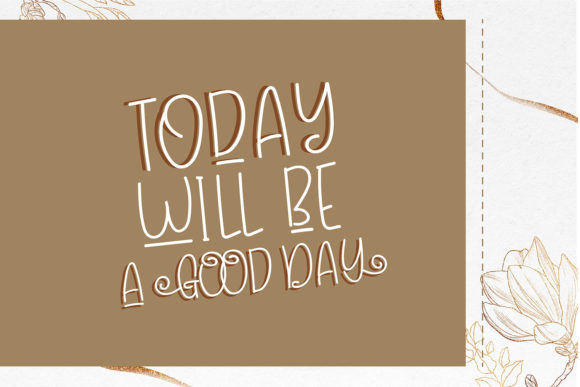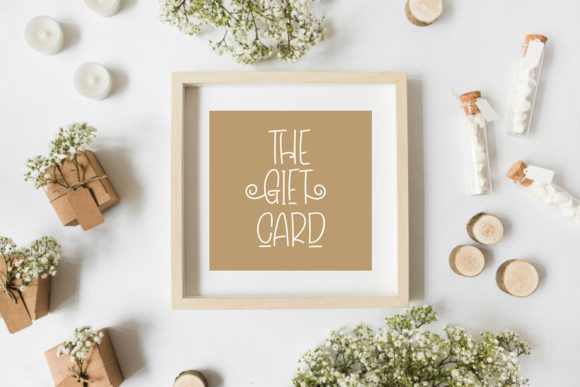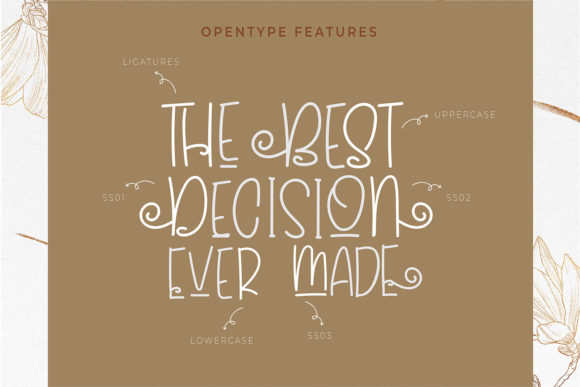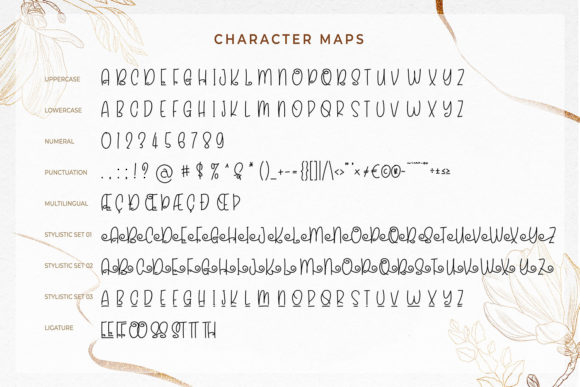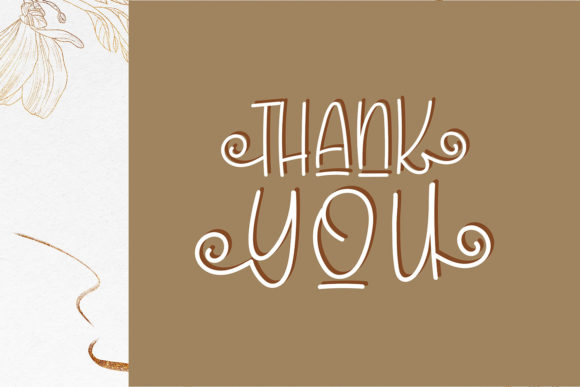
Aleecia Font: Elevate Your Designs with a Simple yet Trendy Display Font
In the world of typography, fonts play a crucial role in conveying messages, expressing emotions, and creating visual identities. For designers, crafters, and creatives, finding the right font can be a daunting task. However, if you’re looking for a versatile and stylish display font, look no further than Aleecia Font. In this article, we’ll explore the features, benefits, and uses of Aleecia Font, and why it’s an incredibly valuable asset to your font library.
What is Aleecia Font?
Aleecia Font is a simple and trendy display font designed to elevate your creations. Its clean and minimalist aesthetic makes it perfect for a wide range of applications, from branding and advertising to packaging and digital media. Whether you’re working on a logo, headline, or social media post, Aleecia Font is an excellent choice.
Key Features of Aleecia Font
- Simple and Trendy Design: Aleecia Font boasts a modern and sleek design that’s perfect for contemporary brands and designs.
- Versatility: This font is incredibly versatile and can be used for various applications, including headings, titles, and short texts.
- Easy to Read: Aleecia Font is designed to be highly legible, making it perfect for digital media and print materials.
- High-Quality: This font is crafted with precision and attention to detail, ensuring a high-quality appearance in any design.
Benefits of Using Aleecia Font
So, why should you choose Aleecia Font for your designs? Here are some benefits of using this amazing display font:
- Enhance Your Brand’s Visual Identity: Aleecia Font can help you create a cohesive and professional visual identity for your brand.
- Stand Out from the Crowd: With its unique and trendy design, Aleecia Font can help your designs stand out in a crowded market.
- Save Time and Effort: This font is easy to use and doesn’t require extensive design expertise, saving you time and effort.
Who Can Benefit from Aleecia Font?
Aleecia Font is an excellent addition to any designer’s or crafter’s font library. Here are some professionals who can benefit from this amazing display font:
- Graphic Designers: Aleecia Font is perfect for graphic designers working on branding, advertising, and marketing materials.
- Digital Artists: This font is great for digital artists creating social media graphics, blog posts, and other digital content.
- Crafters and Makers: Aleecia Font is ideal for crafters and makers creating handmade products, such as jewelry, crafts, or artwork.
- Web Designers: This font can be used in web design to create visually appealing headings, titles, and short texts.
Tips and Tricks for Using Aleecia Font
To get the most out of Aleecia Font, here are some tips and tricks to keep in mind:
- Use it as a Display Font: Aleecia Font is designed to be used as a display font, so use it to create headings, titles, and short texts.
- Experiment with Font Sizes and Colors: Try different font sizes and colors to create visual interest and hierarchy in your designs.
- Pair it with Other Fonts: Aleecia Font can be paired with other fonts to create a unique and visually appealing typography.